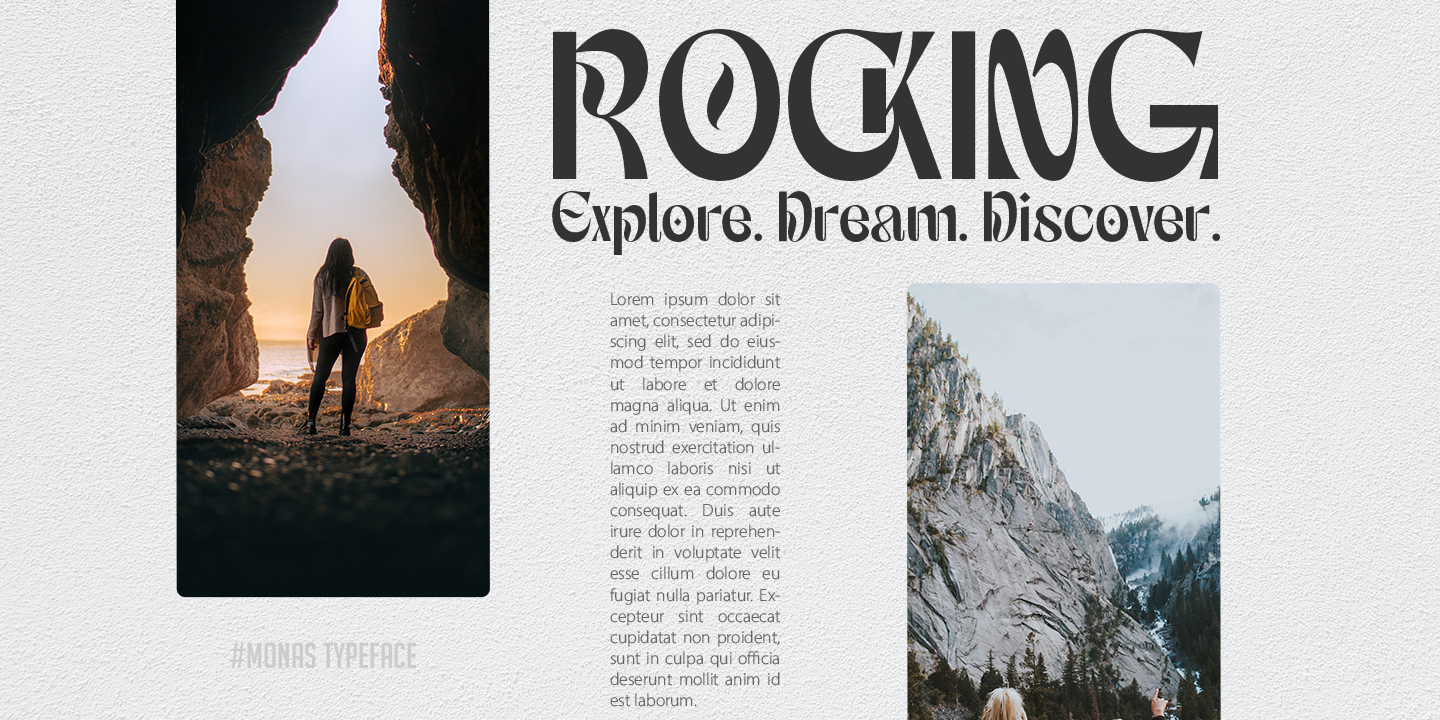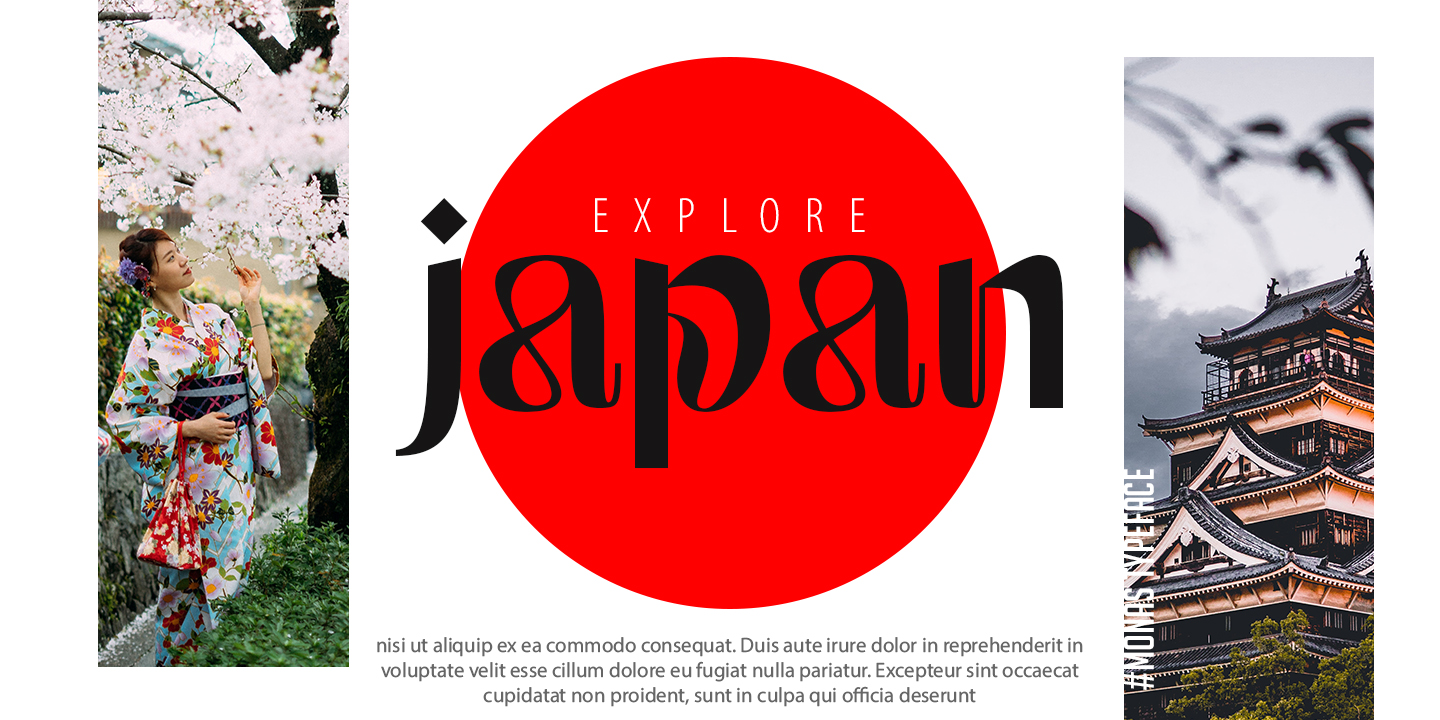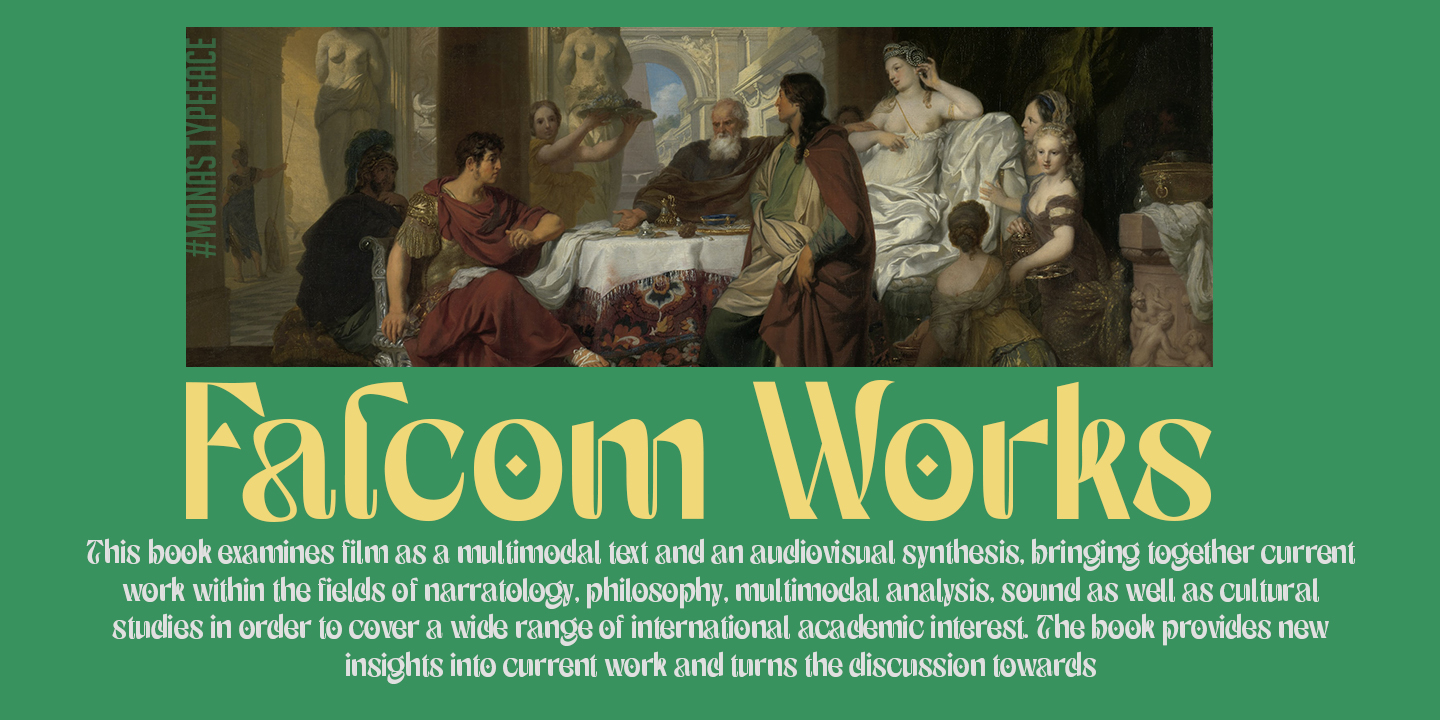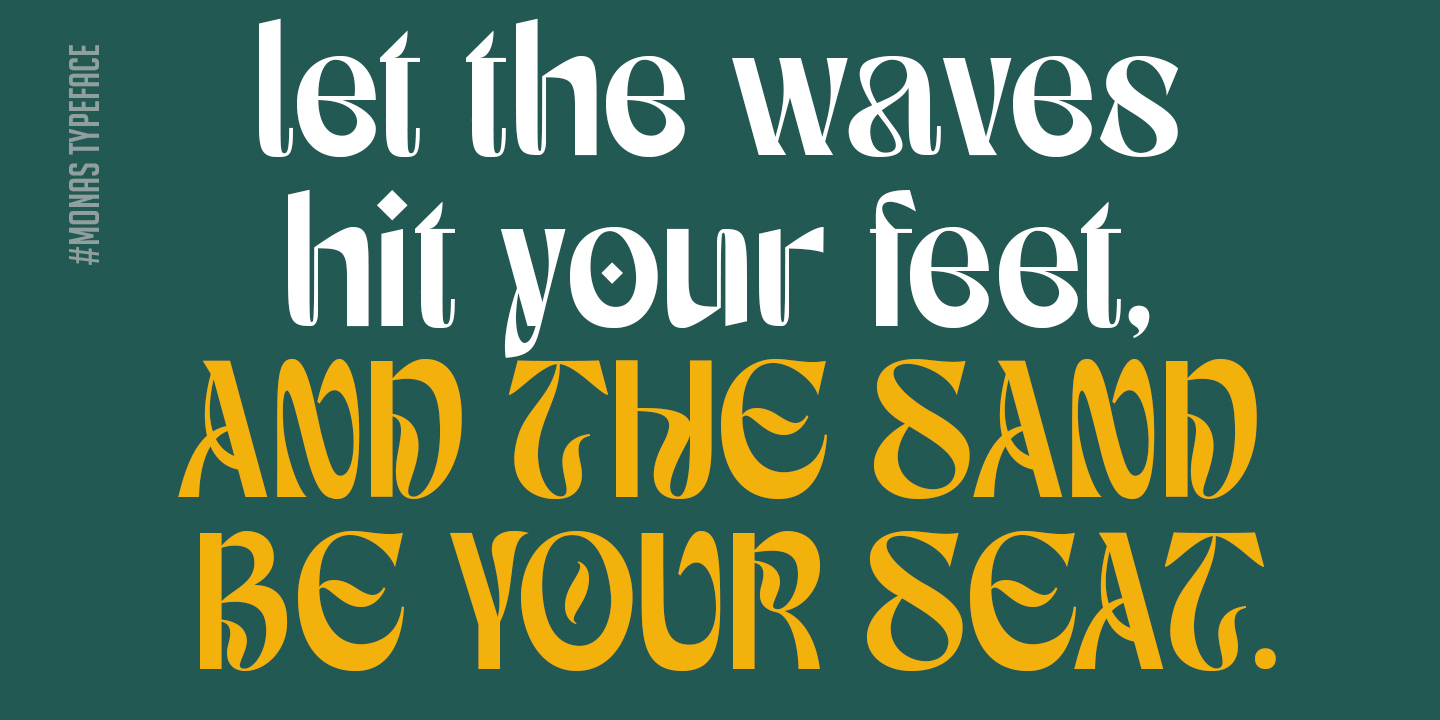
Monas Display Font is a Modern Modern Display Font, use this font for any branding, product packaging, invitation, quotes, t-shirt, label, poster, logo etc.